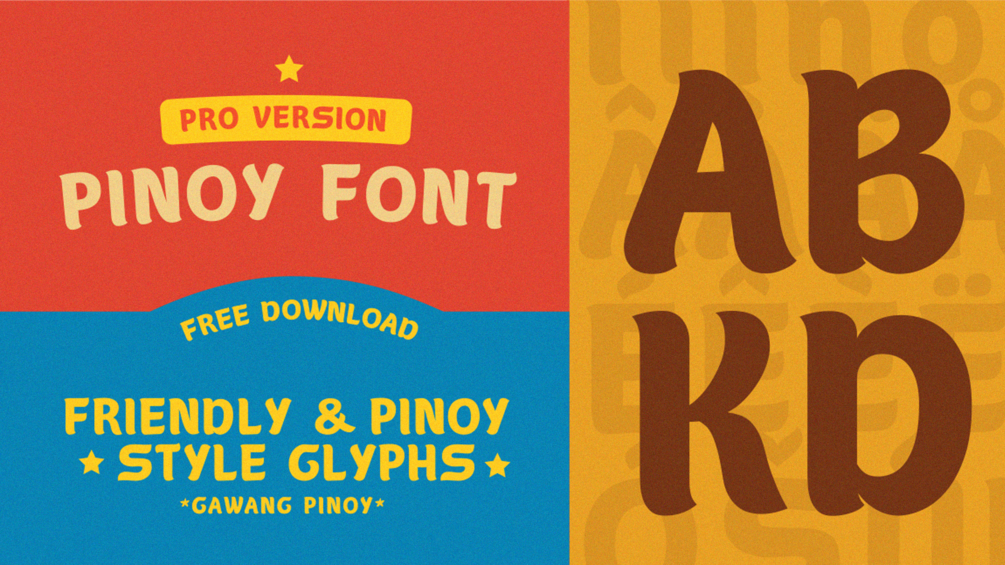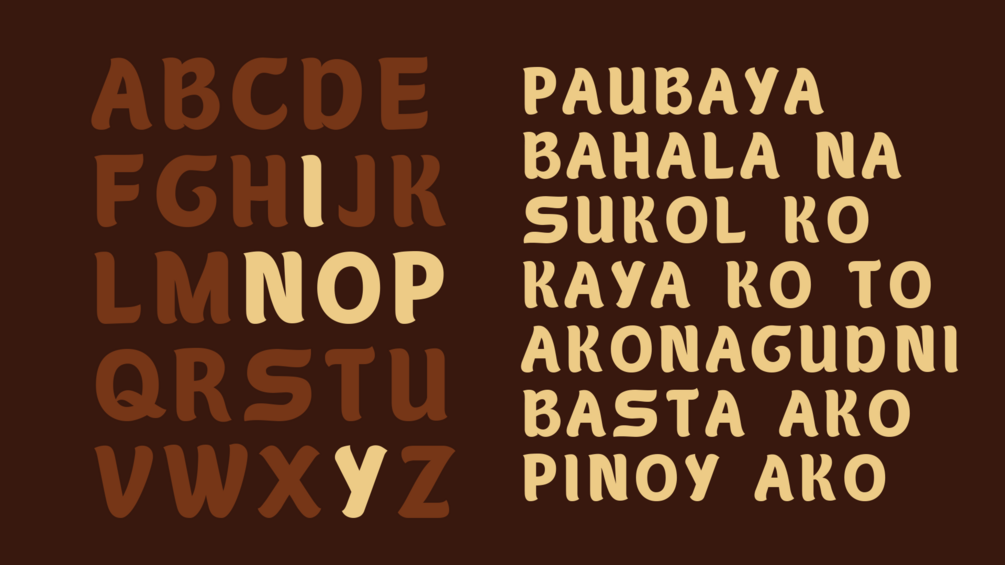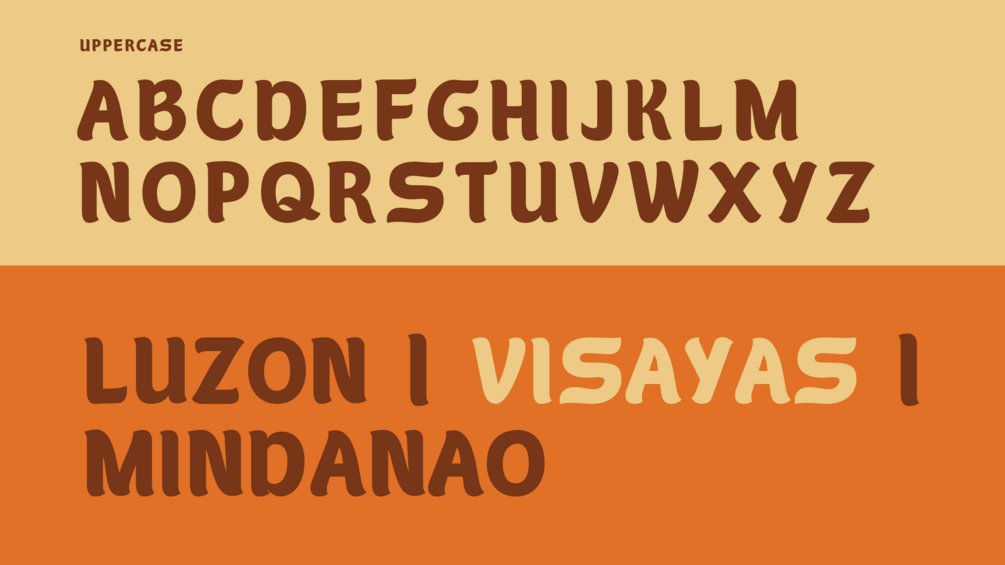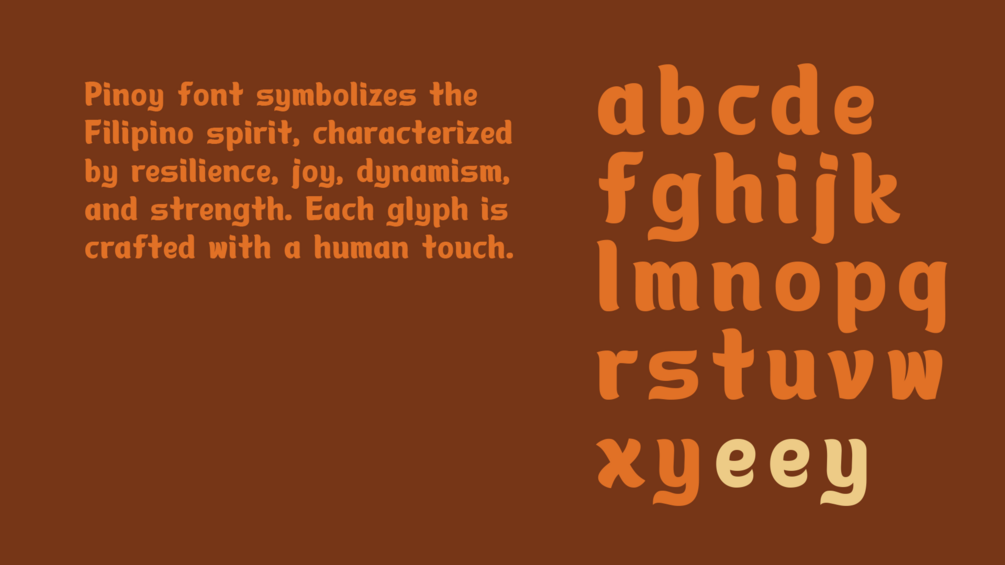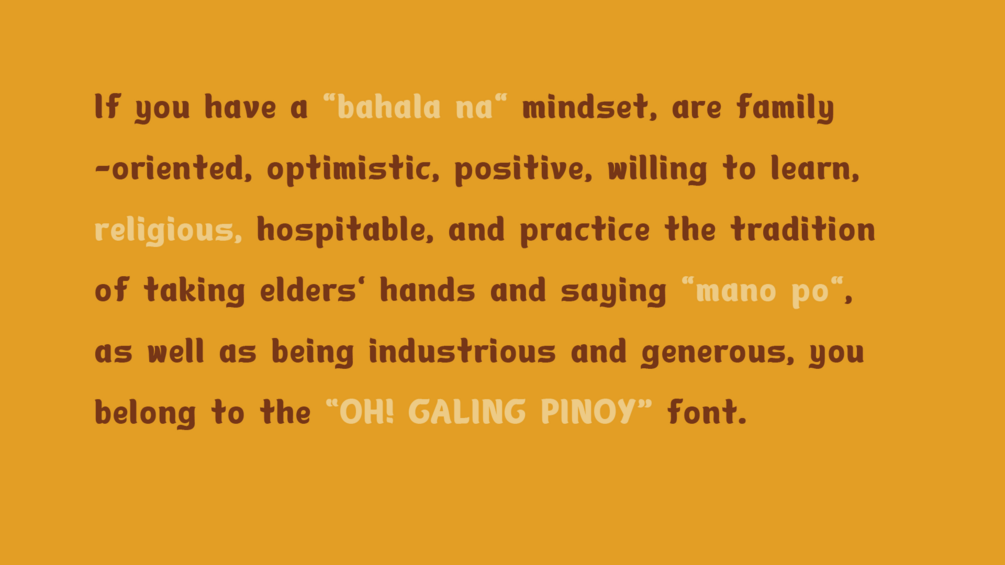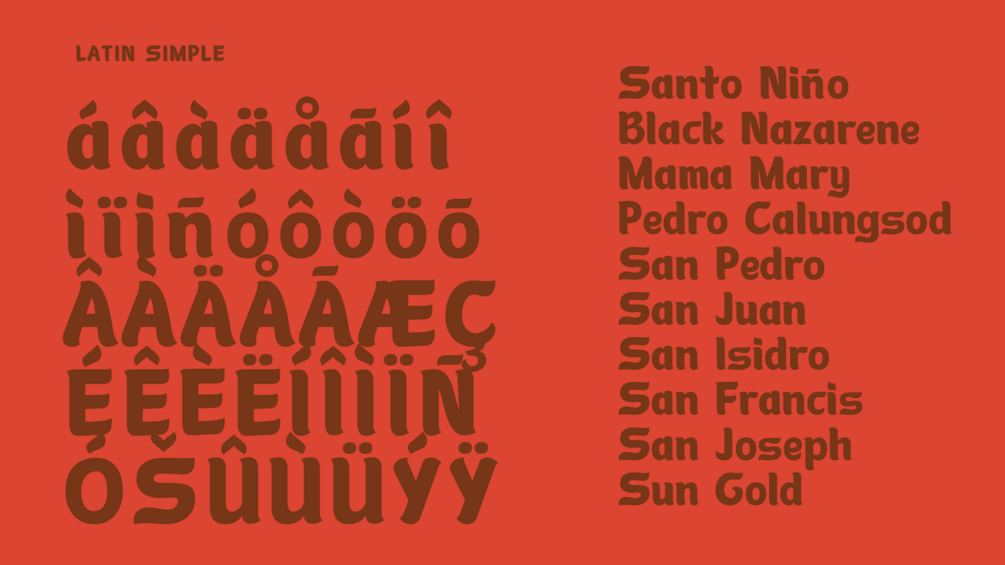
TD Pinoy font
If you have a "bahala na" mindset, are family-oriented, optimistic, positive, willing to learn, religious, hospitable, and practice the tradition of taking elders' hands and saying "mano po", as well as being industrious and generous, you belong to the “OH! GALING PINOY” font.